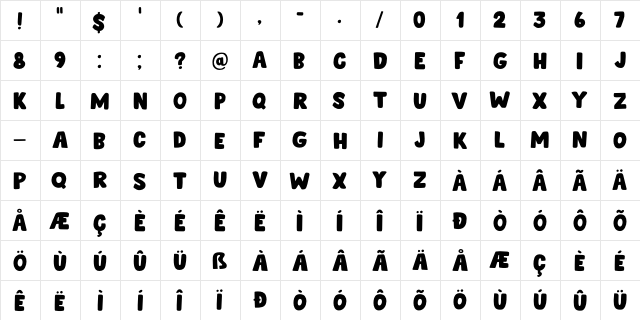
Springwood Display DEMO Regular
Design Context for Springwood Display DEMO Typeface
Springwood Display DEMO taps into classic Western woodtype traditions — bold, characterful, and impossible to ignore.
Perfect for barbecue restaurants, country music branding, vintage poster design, and rustic packaging.
Font Pairing: Combine Springwood Display DEMO with a simple slab or neutral sans — period-accurate companions reinforce the vintage feel without competing for attention.
Pro Tip: Pair Springwood Display DEMO with aged textures or distressed backgrounds to amplify its vintage personality.